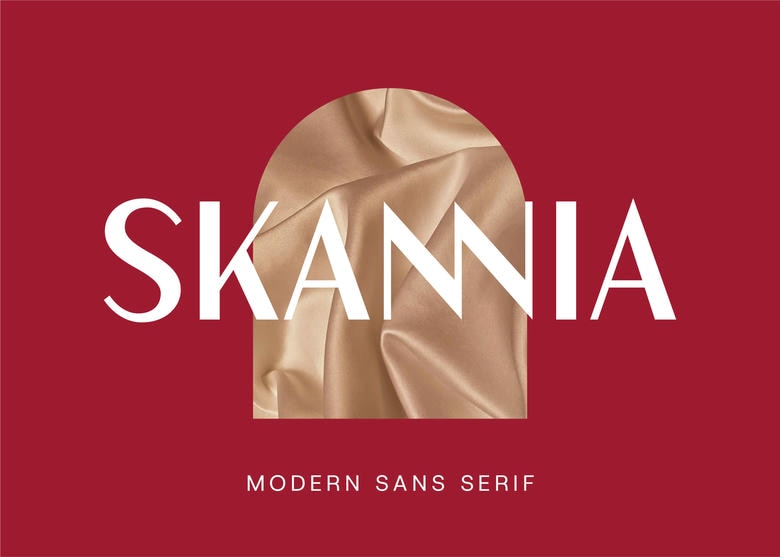
Skannia Font
Skannia is a sophisticated sans serif typeface that strikes the right balance between modern minimalism and the classical flair. Its extended letterforms and high-contrast lines produce a rhythmic, high-fashion look, which is airy and dominant.
Skannia is created to meet the needs of people who value clean lines and luxury editorial style, which is ideal in luxury branding, sleek social media designs and minimal digital products.
Skannia Sans Serif Font